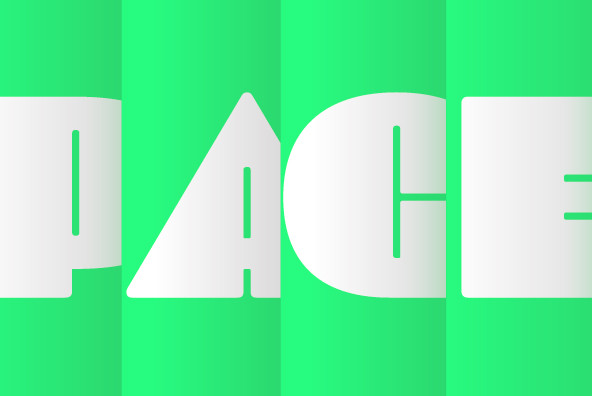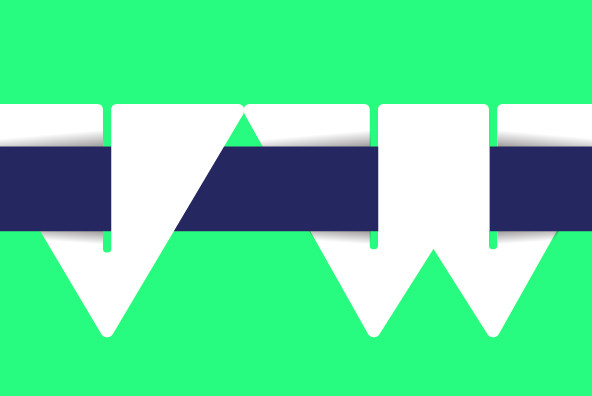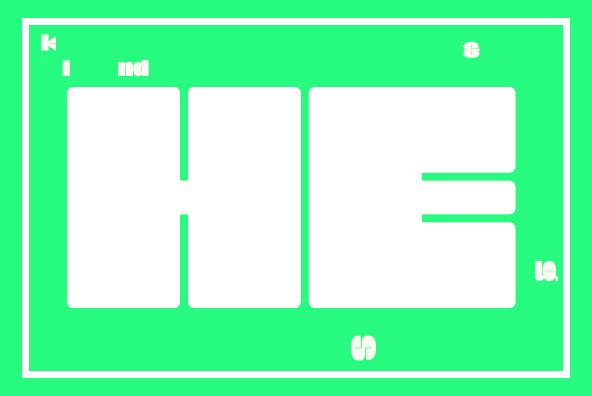
While researching the history of Onitsuka Tiger’s branding and graphic design, I came across an odd, yet highly appealing piece of custom lettering on the company’s ONICK ski boots from the 1970s. Reminiscent of aspects of the typeface Black-Out by Eli Carrico (released by my type foundry Wordshape), yet vertically compressed with razor-sliced counters and odd stencil element that makes up one of the legs of the “K”, the ONICK lettering is a potential source for an intriguing modular font.
I immediately thought of Ryoichi Tsunekawa as a potential collaborator to bring this piece of lettering to full-fledged life in the contemporary context. Based in Nagoya, Tsunekawa runs an independent type foundry called Dharma Type, including three specialized foundry sub-labels: Flat-It, devoted to display lettering; Prop-A-Ganda, a series of fonts inspired by and based on retro propaganda posters, movie posters, retail sign lettering & advertisements in the early 20th century; and Holiday Type, a series of decorative and retro scripts for holiday use.
The past year has seen a flurry of notice of his work abroad, having been featured in both MyFonts' “Creative Characters” and YouWorkForThem’s newsletter. As the work of most Japanese type designers is almost wholly unnoticed abroad, for Tsunekawa to be interviewed by two of the most popular type distribution companies in the world is definitely something beyond the norm. Perhaps it is because he works independently, or perhaps it is due to the charm and friendliness with which his typefaces are infused. Either way, this attention is both welcome and appreciated.
Beyond mere charm, Tsunekawa’s work is nuanced, detailed, and accessible due to its high level of finish. His fonts stand apart from his contemporaries in Latin typeface design in Japan due to his fascination with pop, vernacular and historical lettering from "non-pure" sources- whereas type designers like Kunihiko Okano and Akira Kobayashi have spent years analyzing the essence of Western letterform construction and unlocking the essence of Latin forms, Tsunekawa views surface and the awkward nature of his sources as being of value, as well.
His irreverence for the formal doctrines of history imbue his typeface designs with a rugged inventiveness that would be missed by most- glyphs without source designs are guessed at and approximated, often in a manner wildly divergent from what Western eyes would assume. It is in these moments that I find sheer delight in Tsunekawa’s work and what make me most pleased to invite him aboard Neojaponisme and Onitsuka Tiger’s type development project.
His assorted typefaces show an eclecticism in finish and as holistic systems- Tsunekawa’s return email to me about the proposed type project showed a digital sketch of how a completed typeface family from the source lettering might look, rendered with an effortlessness and dedication to detail that belies a skilled craftsperson. Further development showed Tsunekawa’s rigor- the typeface in development rapidly featured glyphs ignored by many: a full set of fractions, Eastern European diacritics and accents, superior and inferior numerals, alternate characters, and custom ligatures - all designed with regulated, detailed spacing.
ONICK is a typeface Tsunekawa should be proud of- an homage to a moment in history rendered in the absolute best fashion. We are proud to present it to the world!